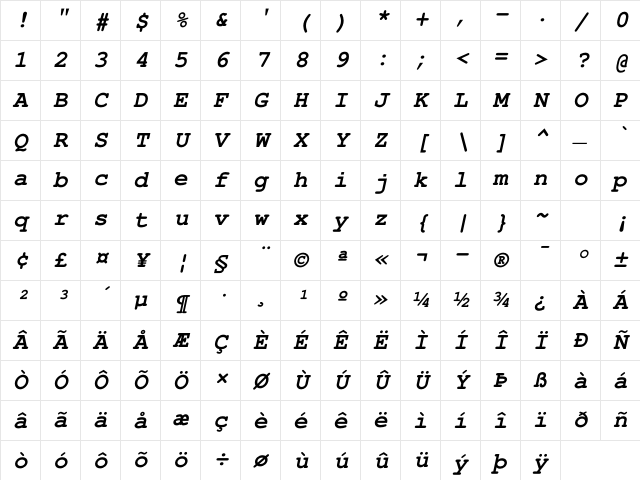
FreeMono BoldOblique
Style: BoldOblique
Foundry: GNU
Complete FreeMono BoldOblique glyph index. Displaying only characters natively supported by FreeMono BoldOblique font.
Design Context for FreeMono
FreeMono uses fixed-width spacing throughout, giving it the structured, systematic character associated with coding environments and technical documentation. The slanted form adds forward momentum and visual energy. Its bold stroke weight gives it real presence on the page.
Who designed the FreeMono BoldOblique font?